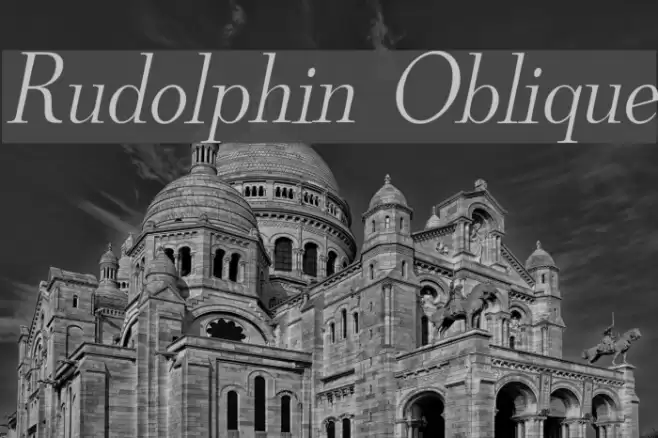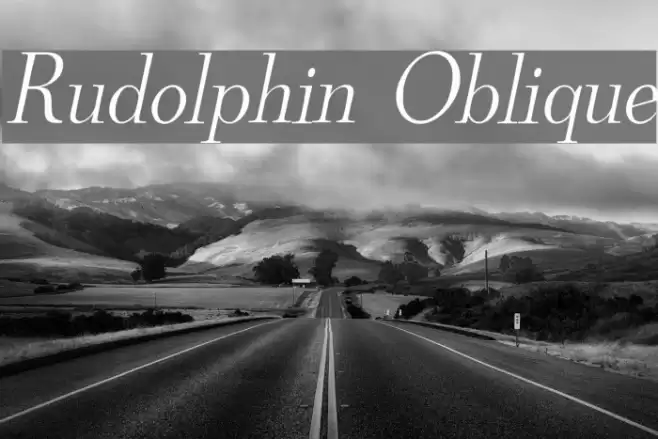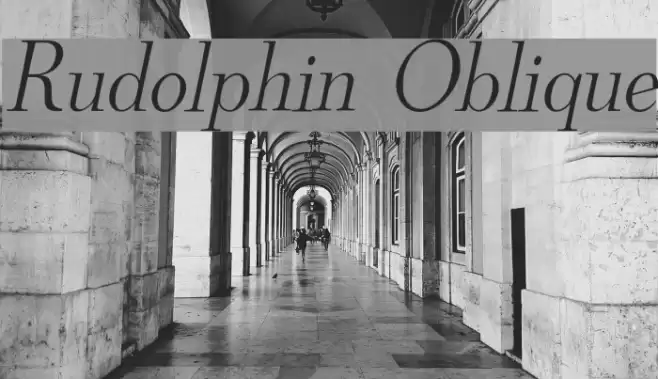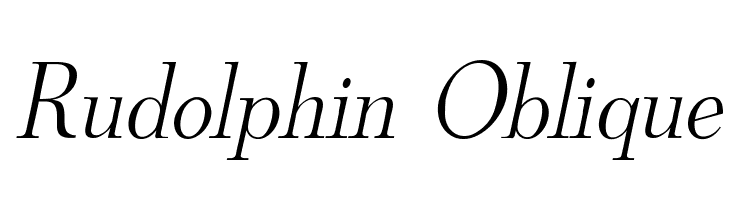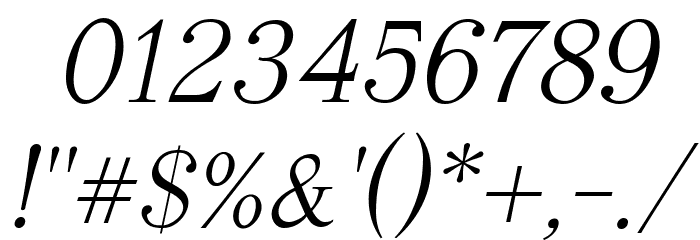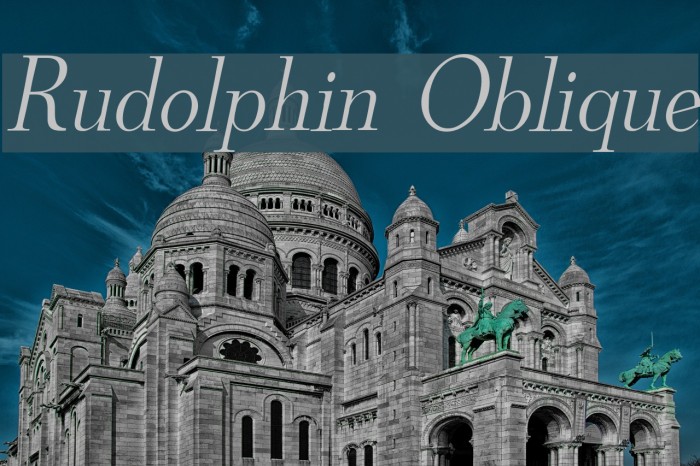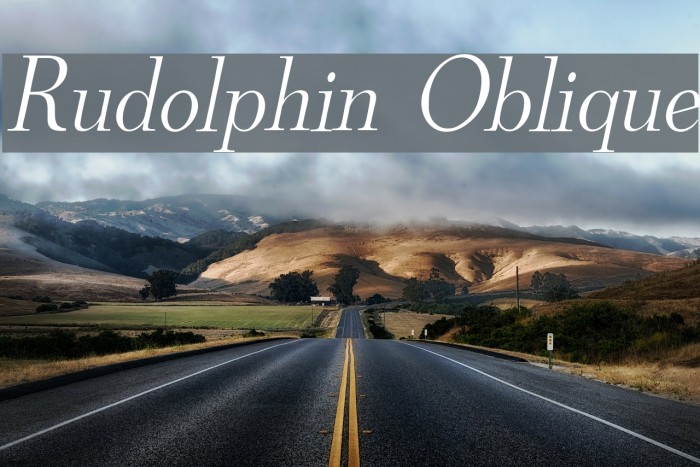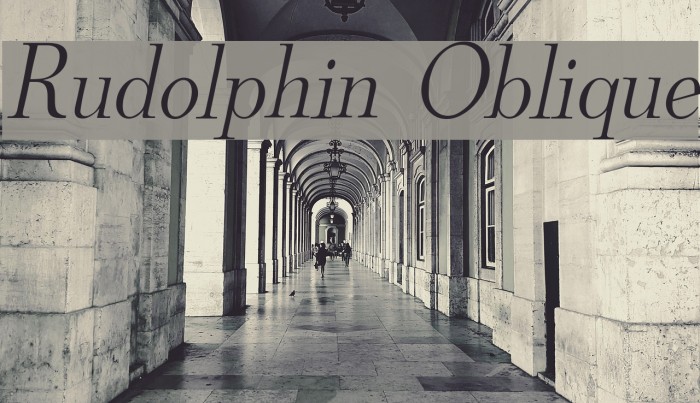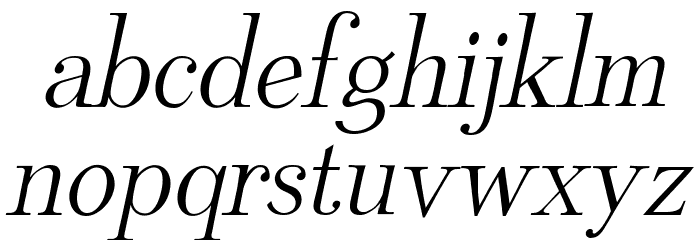
Rudolphin Oblique Font
Rudolphin Oblique Description
This font features an elegant and sophisticated design with a slight slant, giving it an oblique appearance. The characters are well-defined with a classic serif style, providing a timeless and professional look. The uppercase letters are tall and commanding, while the lowercase letters maintain a consistent flow with smooth curves and balanced proportions. The numerals are clear and distinct, ensuring readability. Special characters are included, offering versatility for various uses. The overall design is refined, making it suitable for formal and high-end applications.
Elegant serif font with an oblique style, perfect for formal applications from Uncategorized fonts.
- Proposed Projects: Ideal for use in luxury branding, editorial design, invitations, and formal documents.
- Overall Style: Classic